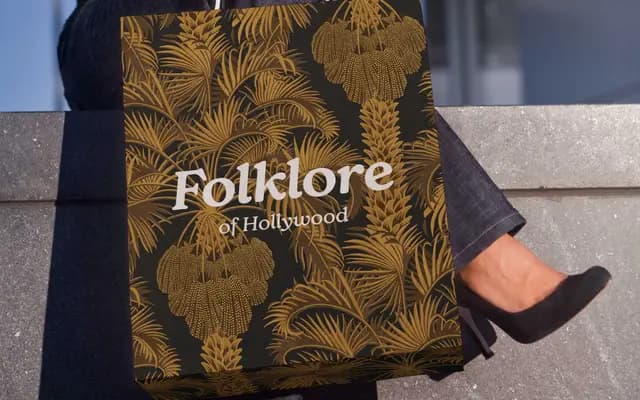
New Spirit Italic
The italic companion to New Spirit, a thorough revival of Windsor (1905) that runs across five weights from Light to Bold.
Derived from Stephenson, Blake & Co.'s Windsor of 1905, New Spirit Italic brings the organic, Arcadian character of the upright revival into a sloped form across five weights. The design sits at an unusual intersection of Art Nouveau looseness and Oldstyle serif structure, giving it a warmth rarely found in revivals of this period. Pairs naturally with the upright, condensed and compressed cuts for editorial, packaging and identity work that wants period romance without pastiche.
A revival of Windsor (1905), the typeface blends organic Art Nouveau qualities with Oldstyle serif conventions, placing it firmly in the oldstyle serif category with distinctive period character.